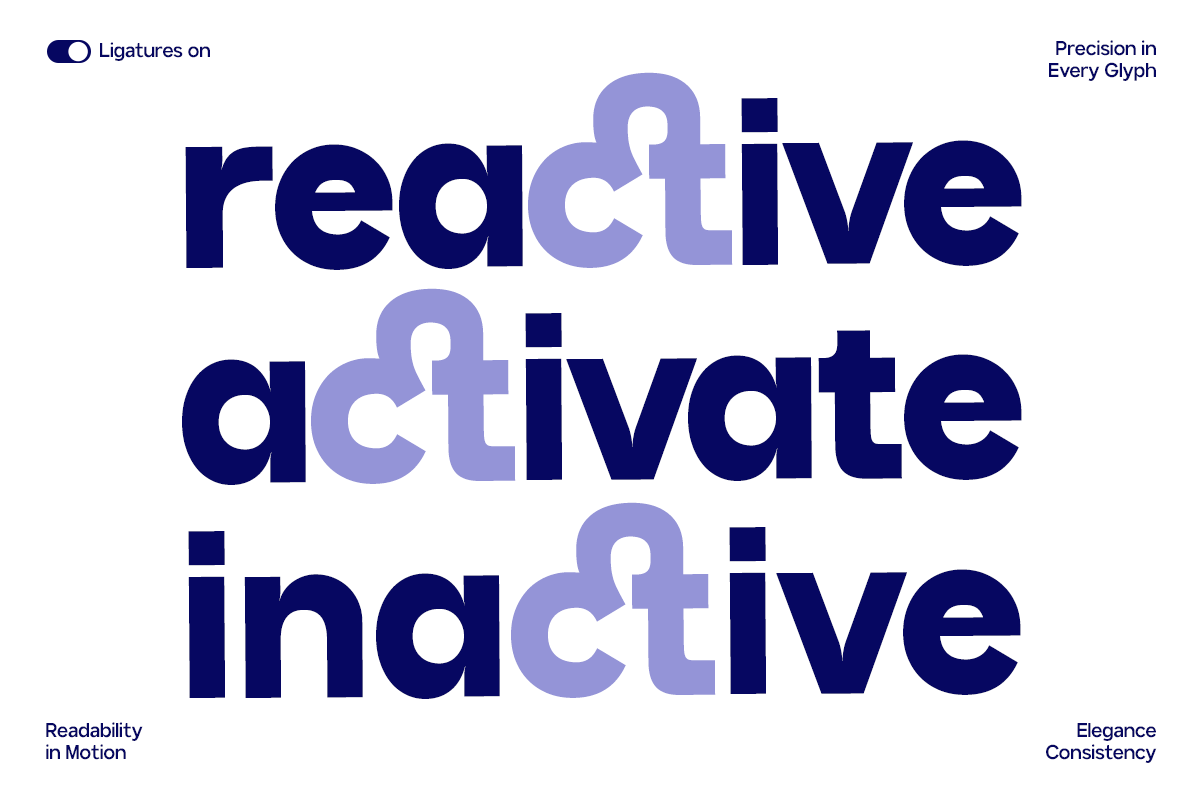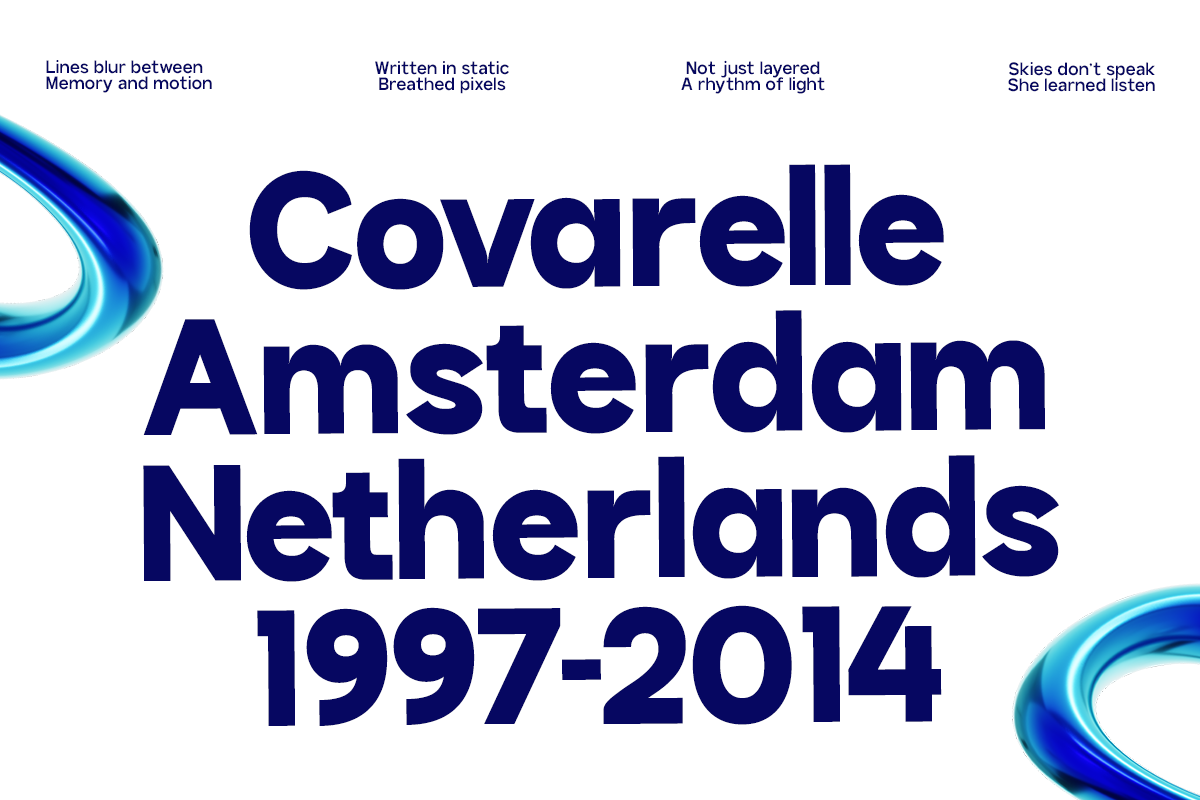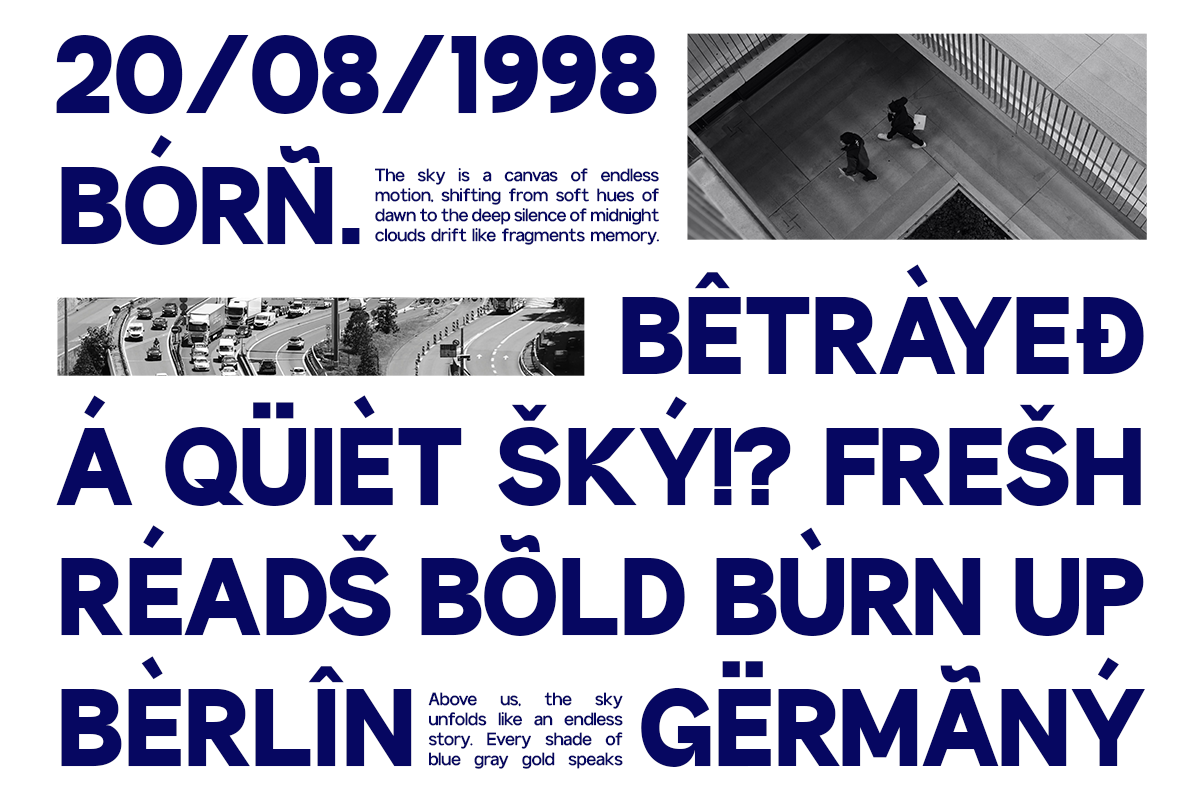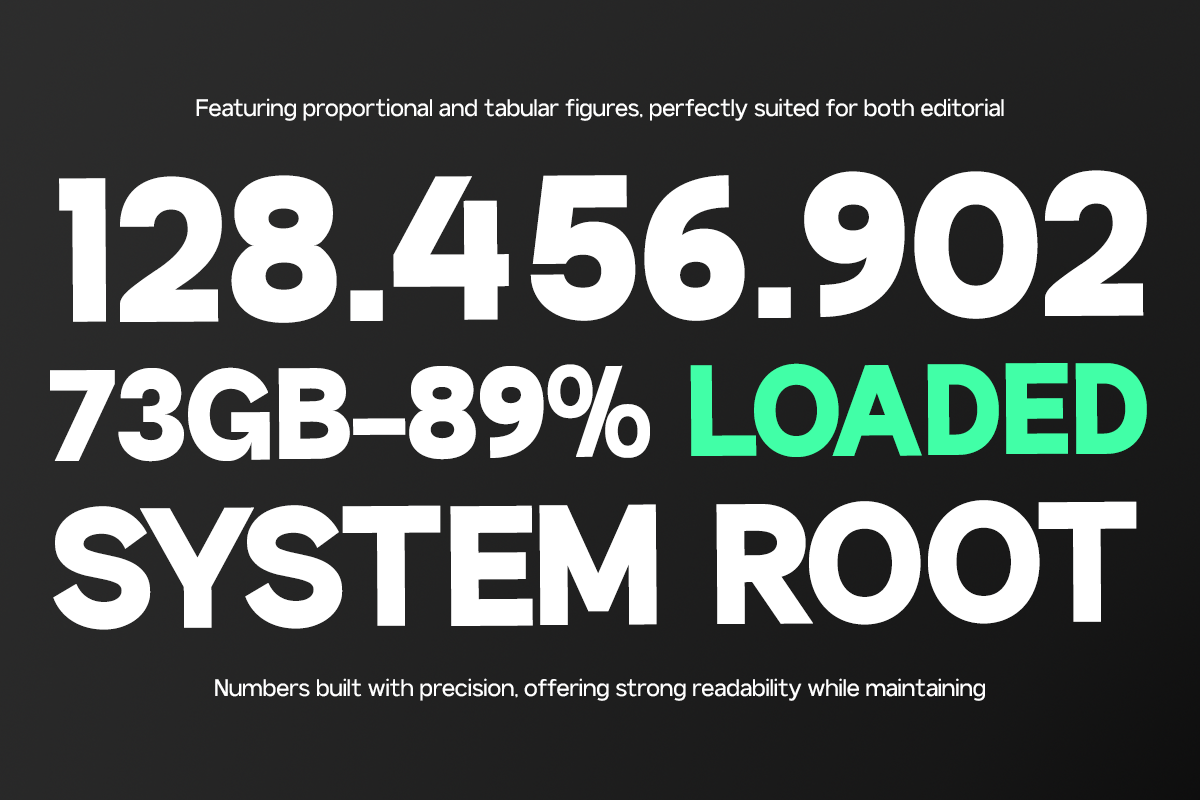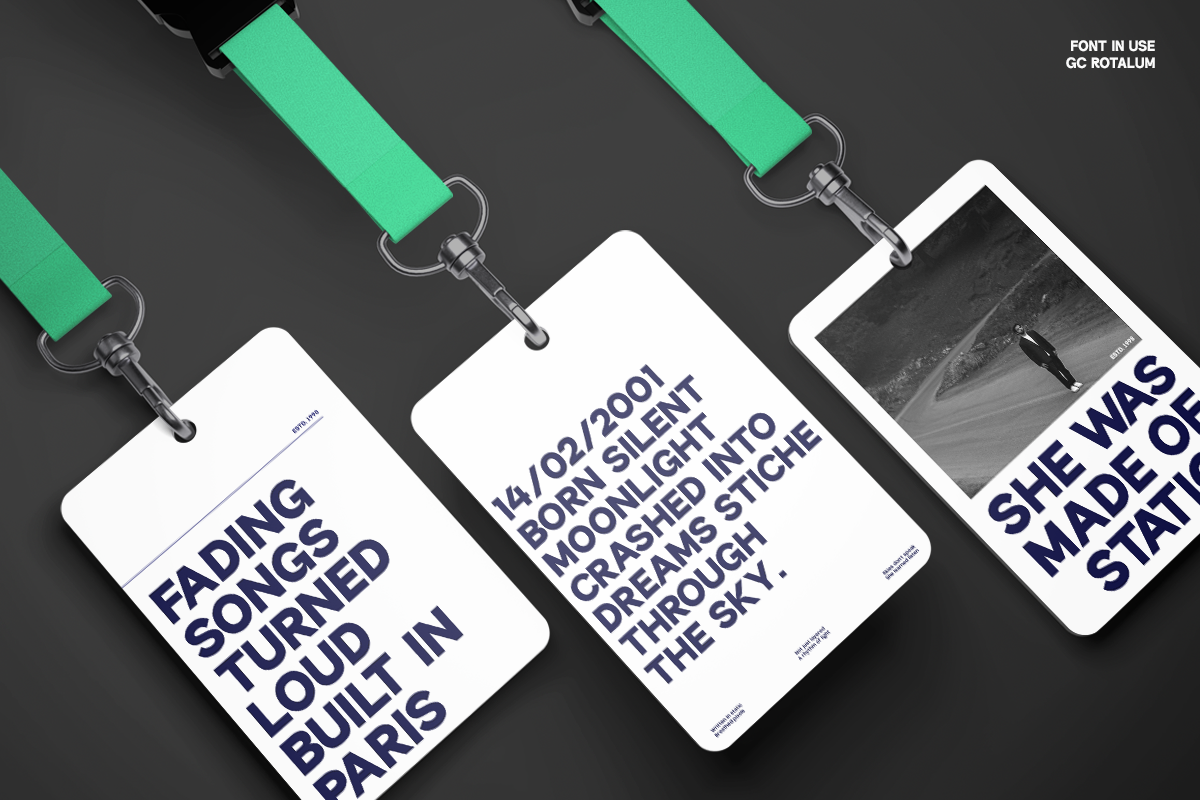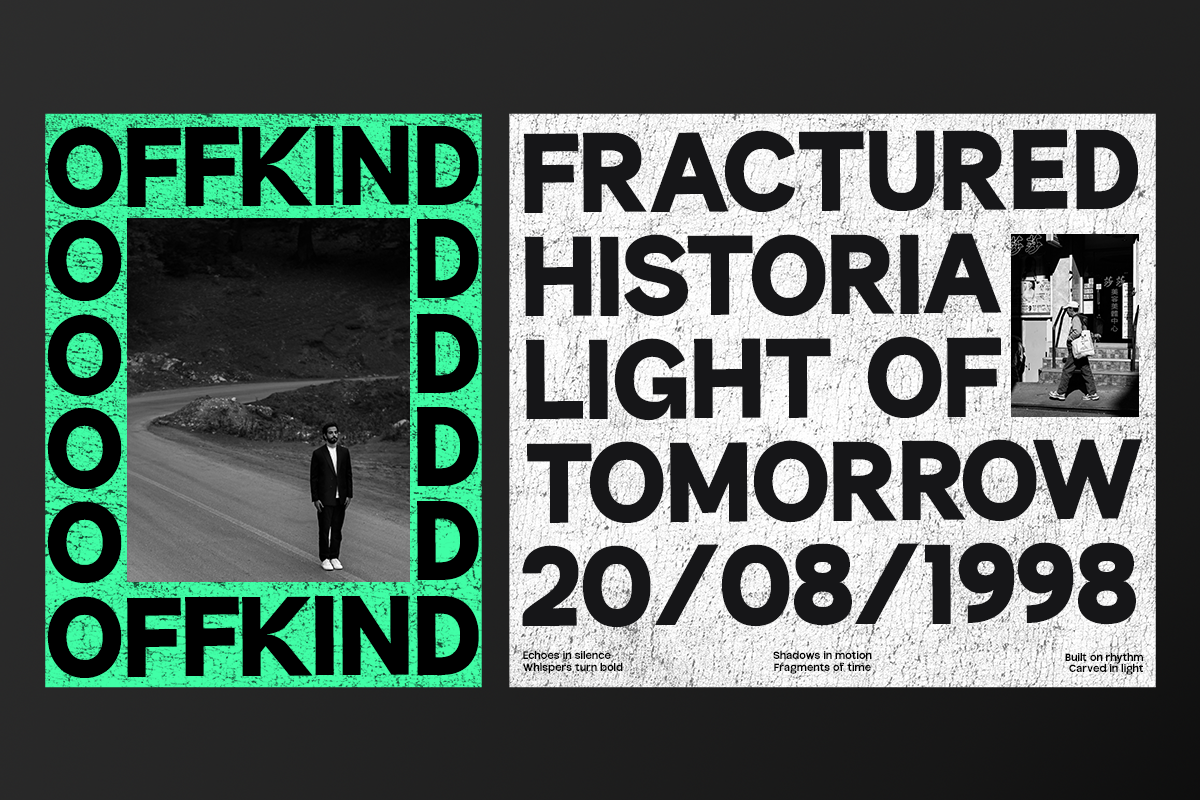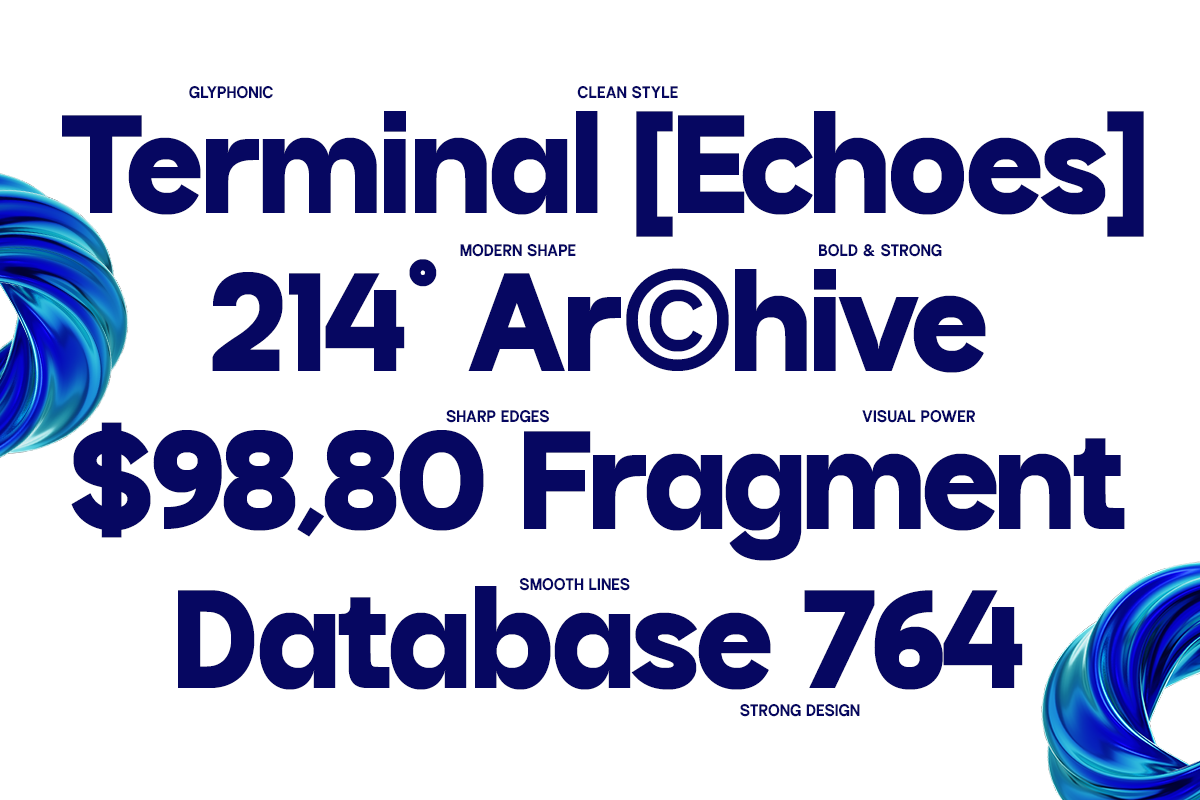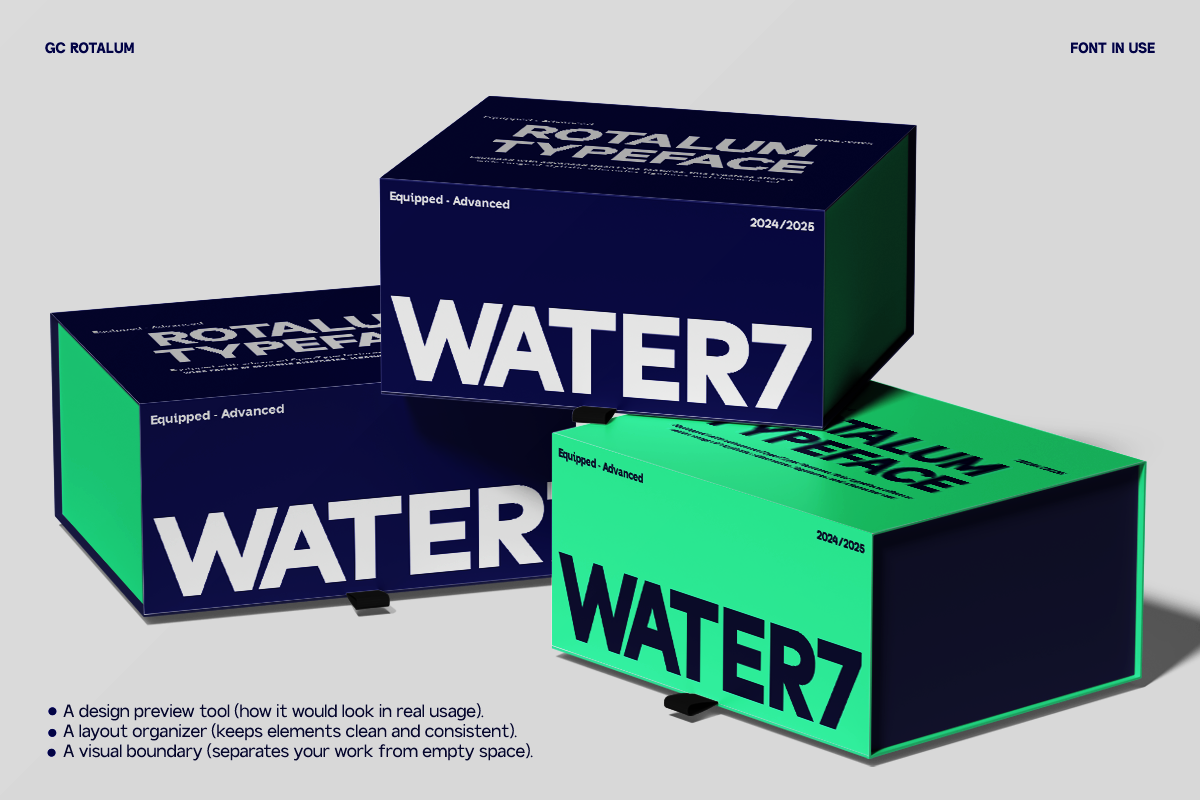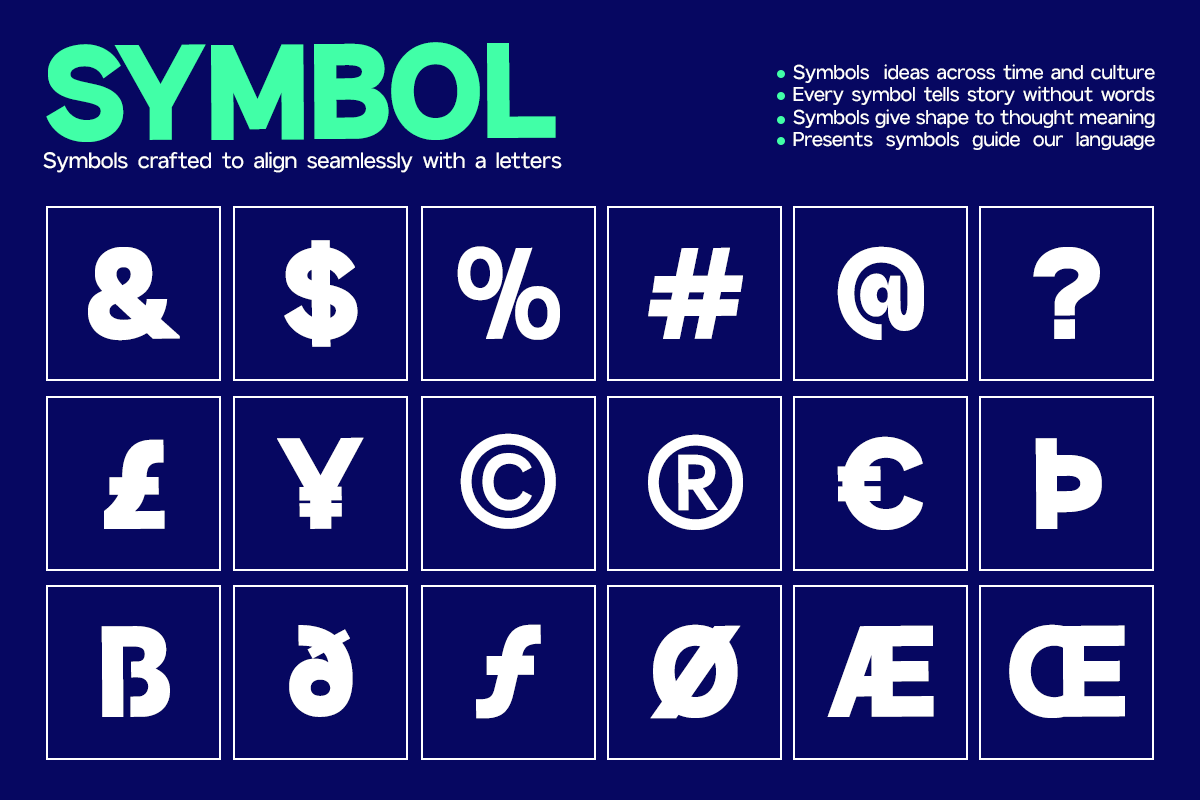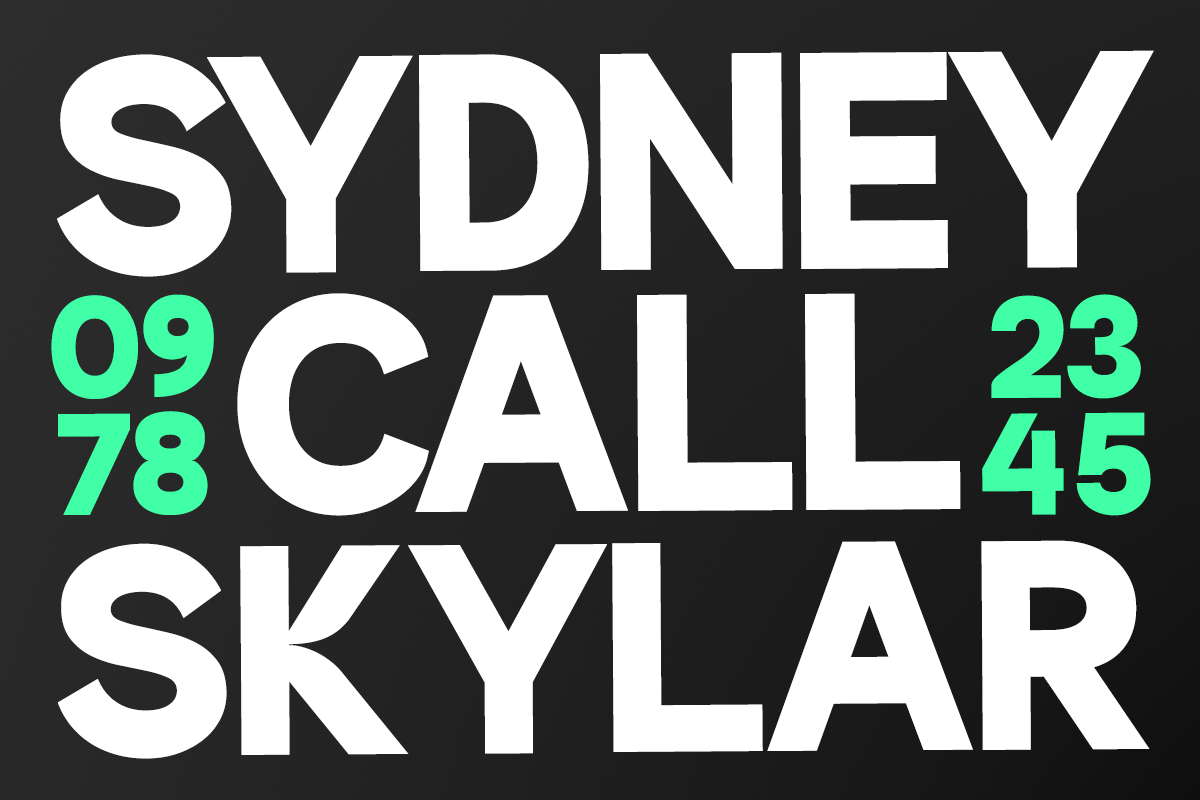
GC Rotalum - Modern Bold Sans
GC Rotalum – Modern Bold Sans is a contemporary sans serif typeface crafted for strength, clarity, and versatility. With clean geometry and bold proportions, it delivers a powerful voice that works seamlessly across digital and print media. Designed to embody modern simplicity without losing character, it’s ideal for branding, editorial layouts, bold headlines, and impactful visual identities.
Balanced structure and precise detailing make GC Rotalum adaptable yet distinctive. Whether you’re creating sleek interfaces, striking posters, or contemporary campaigns, this font brings boldness, modernity, and elegance to your typography.
- Modern Geometric Construction
- Multilingual Support (170+ Languages)
Bring strength, clarity, and modern elegance to your design with GC Rotalum – Modern Bold Sans.